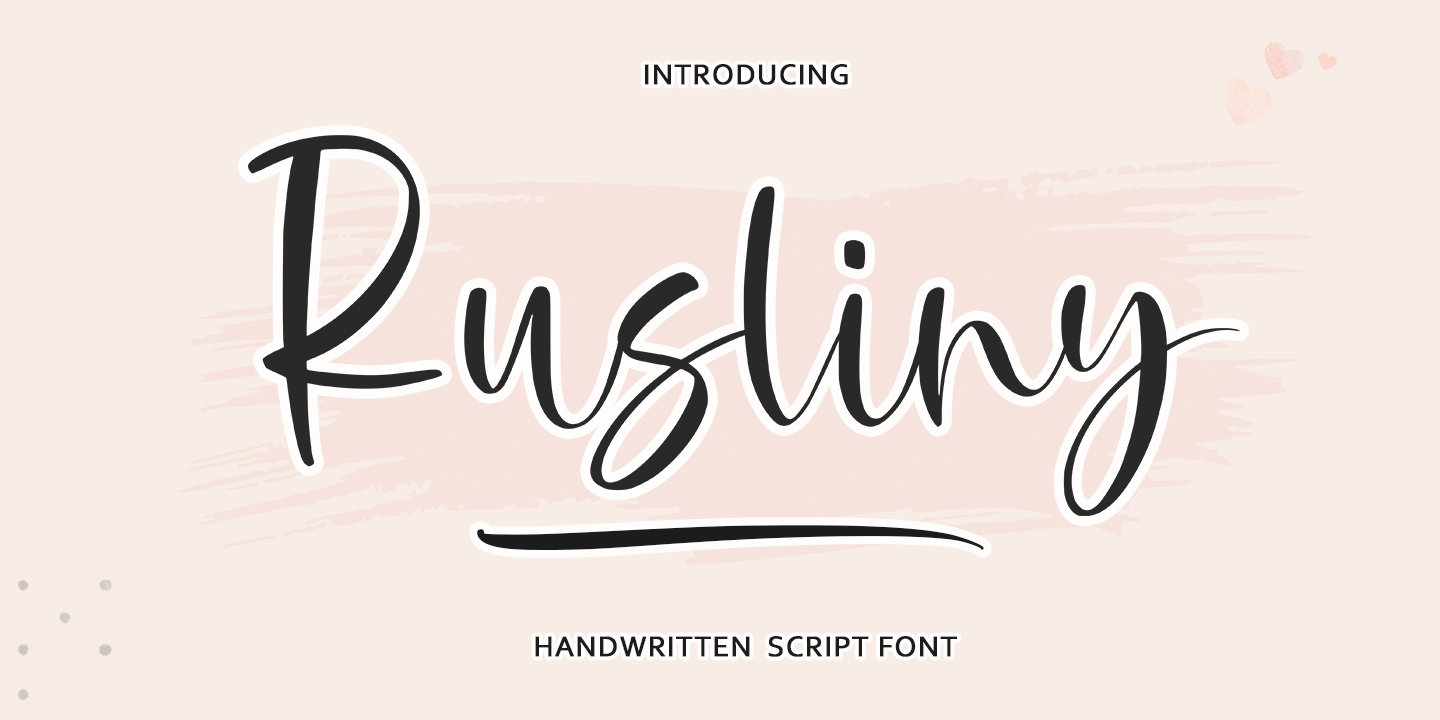
Rusliny
Rusliny is a brush script and dingbat font family. This typeface has three styles and was published by Rastype Studio.
Rusliny Script and Underline is a handwritten font with a modern calligraphic feel.
Rusliny is perfect for modern projects, business cards, headers, blogs, logos, branding, invitations and more!